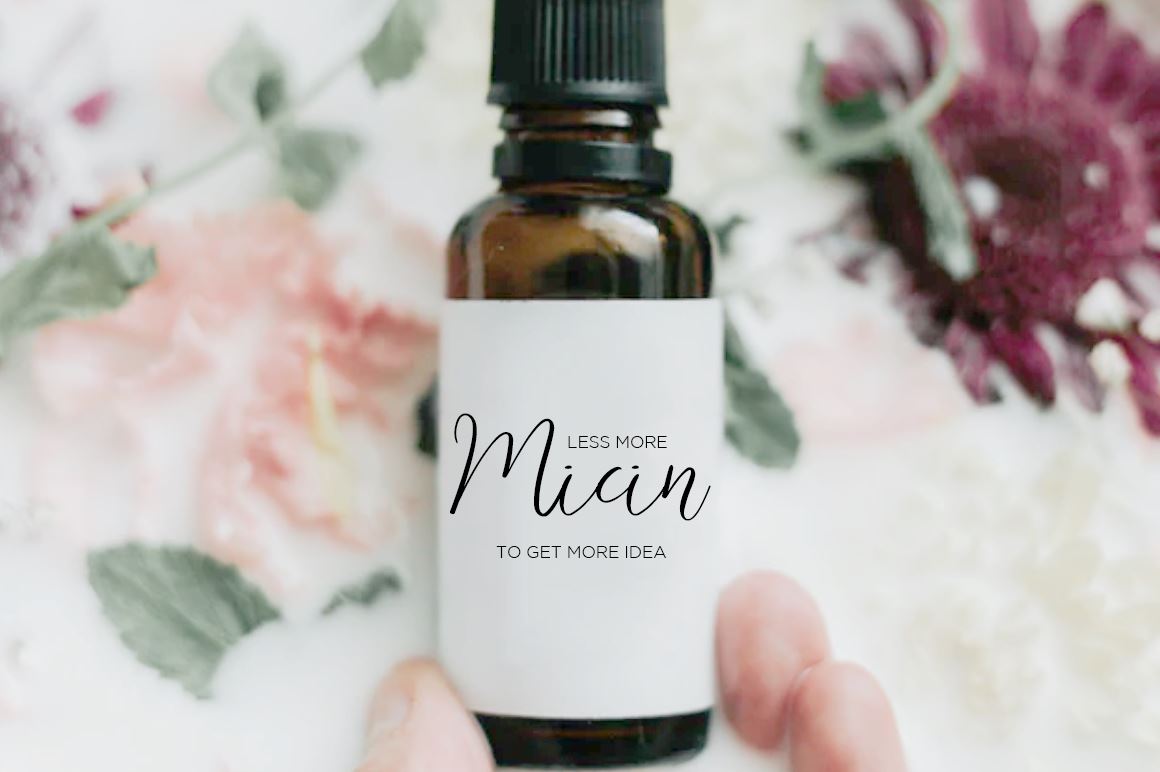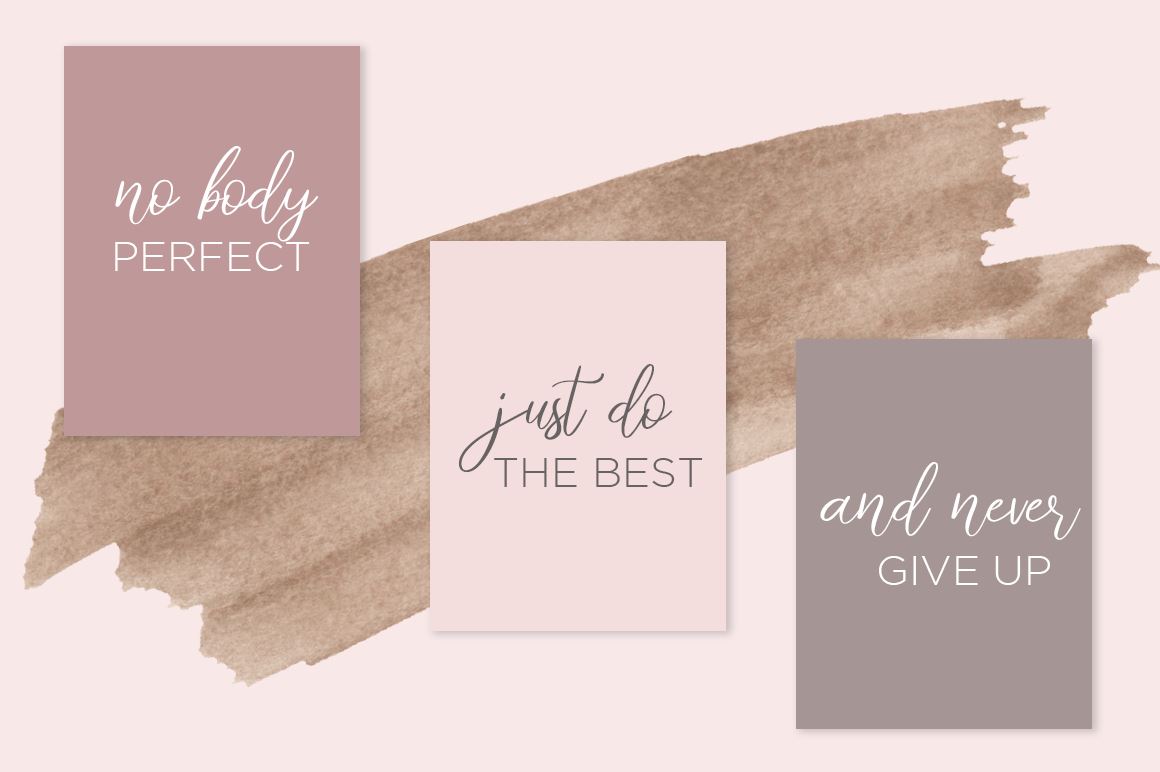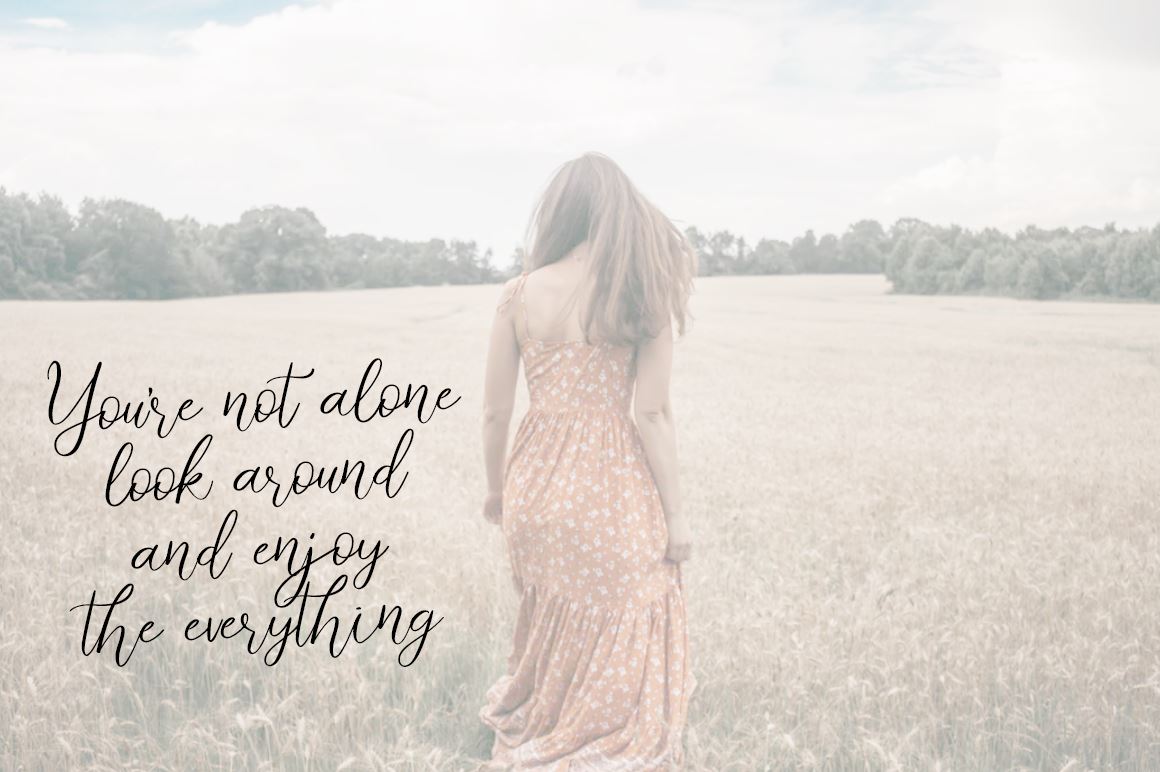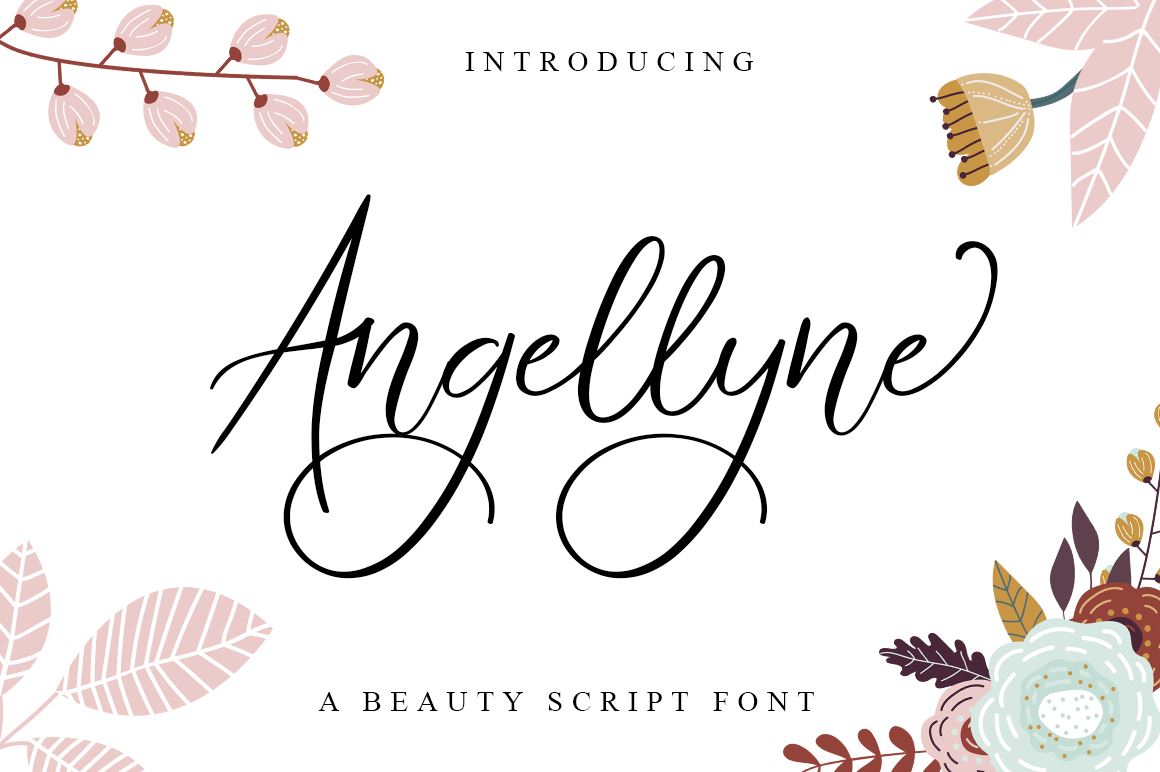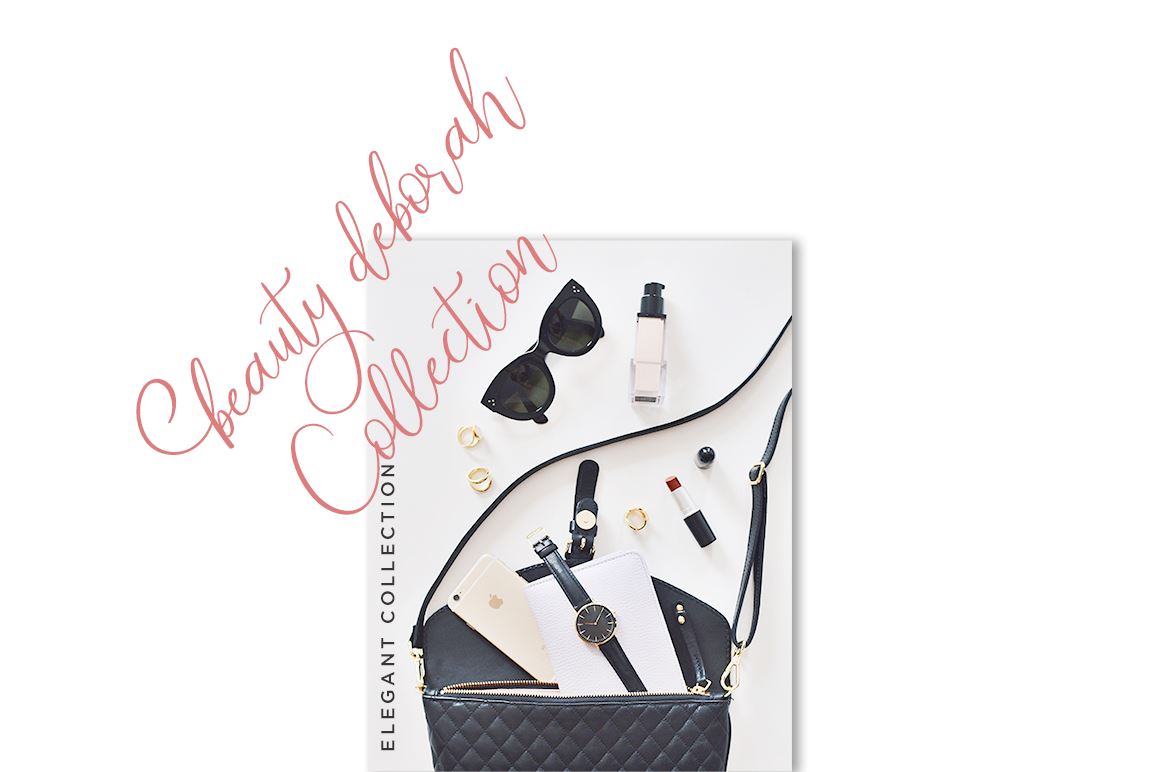
Angellyne Script
Introducing the Angelline Script Font! If you are needing a touch of casual chic calligraphy for your designs, this font was created for you! Contain of : Angellyne Script (TTF + OTF + WOFF) Accessing the swashes / opentype features / glyphs: You can access the swashes and alternates from the ‘Glyphs Panel’ in these programs. More Questions? Here are some (potential) answers! Cheers!